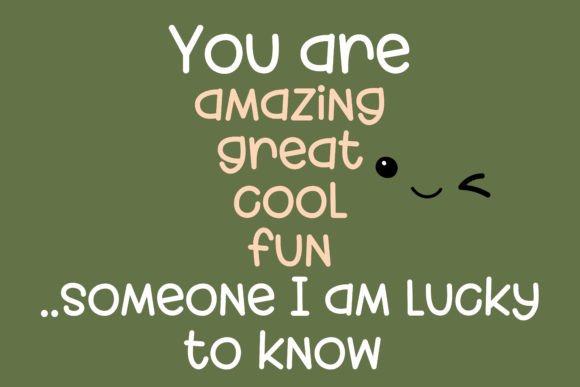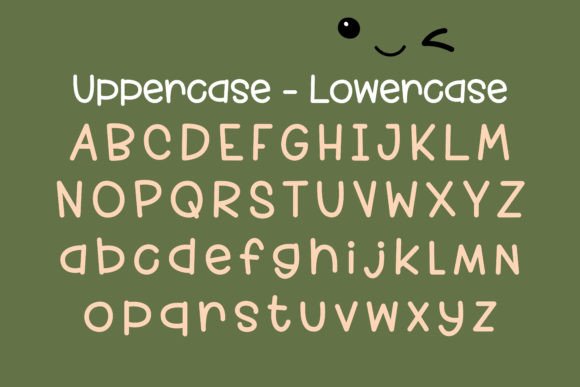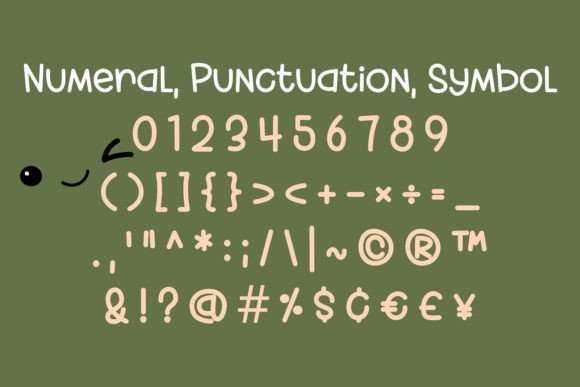
Introduction to Smiley Thanks Font
As a designer, there’s nothing quite like the thrill of bringing a creative project to life. Whether it’s a custom wedding invitation, a fun kids’ party decoration, or a heartfelt greeting card, the right font can make all the difference. And that’s exactly where the Smiley Thanks Font comes in – a delightful, handwritten sans serif font that adds a friendly touch to any design.
Imagine being able to convey a sense of joy and gratitude with just a few strokes of the pen. The Smiley Thanks Font is a high-quality design resource that’s perfect for adding a personal touch to your projects. With its transparent background and free download option, it’s easy to integrate into your design workflow and take your creative projects to the next level.
Key Features of Smiley Thanks Font
- Unique, smiley-themed design adds a touch of personality to any project
- Perfect for use in social media graphics, posters, and other design materials
Honest Review: Smiley Thanks Font
As a designer, I’m always on the lookout for high-quality design resources that can elevate my creative projects. The Smiley Thanks Font is a free download that caught my attention, and I’m excited to share my honest review.
- Unique and playful design that’s perfect for adding a touch of whimsy to your project
- Perfect for social media graphics, blog posts, or any other creative project that needs a bit of personality
⚠️ Limitations:
- Limited font styles, which may not be suitable for complex typography projects
- Not ideal for professional or formal designs, as it’s more suited for casual and playful projects
Overall, the Smiley Thanks Font is a great addition to any designer’s library. While it may not be suitable for every project, its unique design and high-quality vector files make it an excellent choice for creative projects that need a bit of personality.
The Smiley Thanks Font is perfect for social media graphics, blog posts, marketing materials, presentations, and documents. It’s also great for creating custom logos, illustrations, and graphics. Whether you’re a professional designer or a DIY enthusiast, the Smiley Thanks Font is a great addition to your design toolkit.